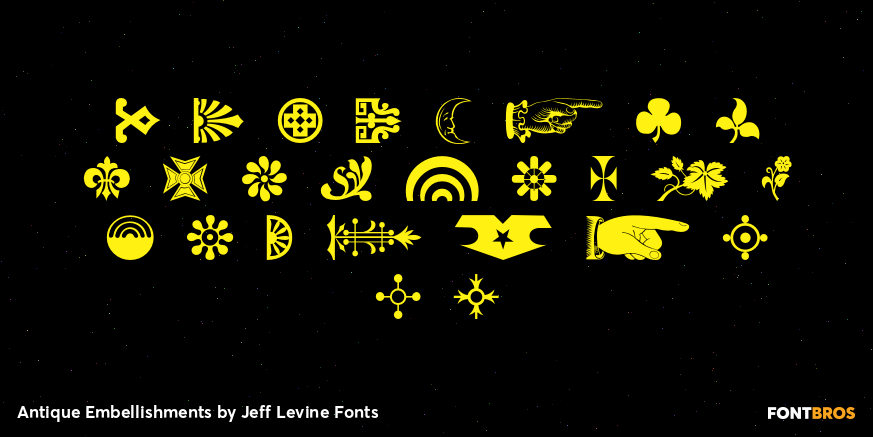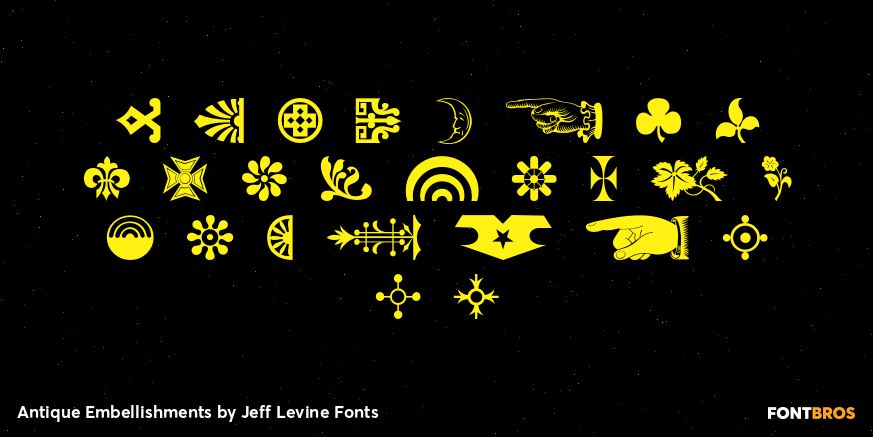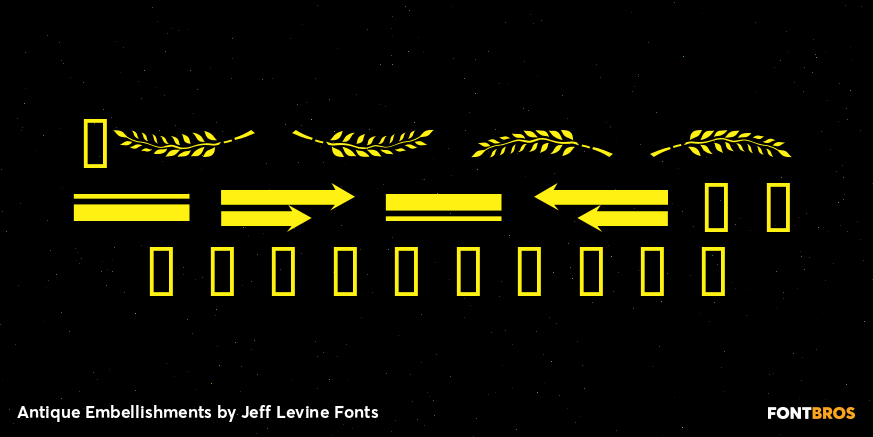
Antique Embellishments
Antique Embellishments JNL collects more vintage wood type ornaments and embellishments from the late 1800s and is a perfect companion to Antique Ornaments JNL.